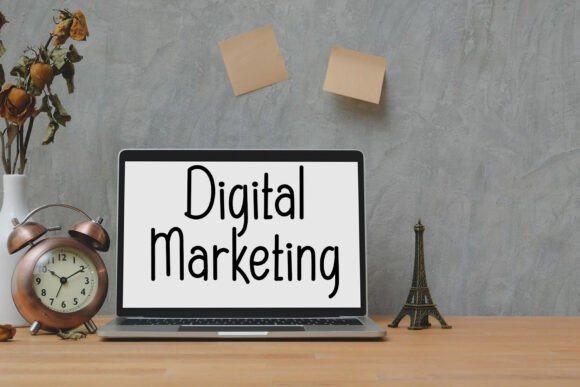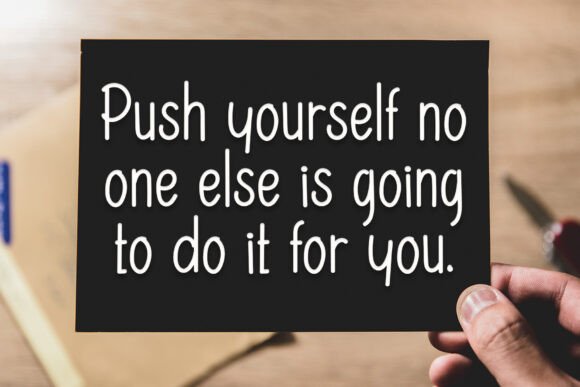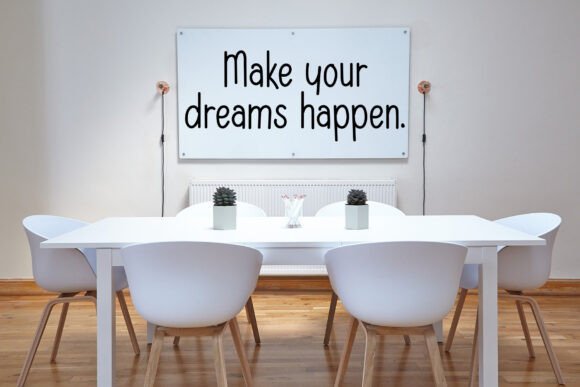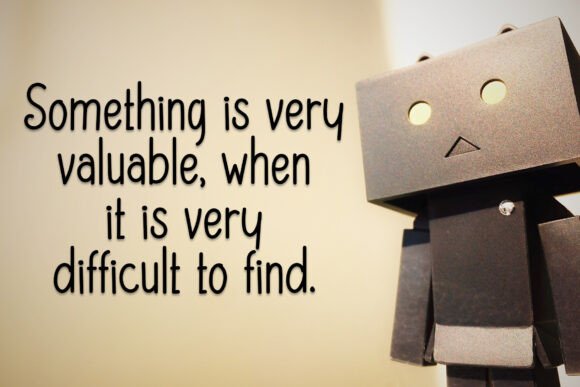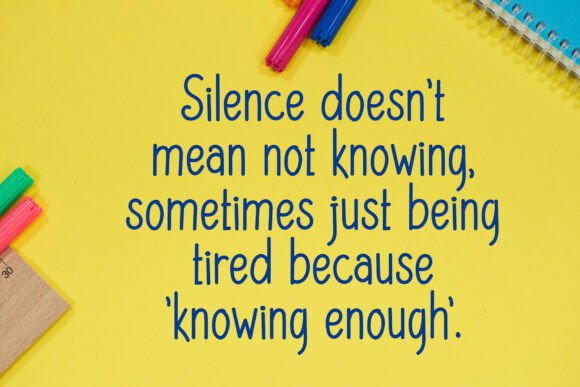
Coffee Lover Font: Elevate Your Designs with a Unique and Elegant Touch
Are you a designer or crafter looking for a font that can add a touch of elegance and sophistication to your creations? Look no further than the Coffee Lover Font. This beautiful, handwritten font is perfect for a variety of design projects, from wedding invitations and greeting cards to billboards, logos, and business cards.
A Unique and Elegant Font for Your Designs
Coffee Lover Font is a one-of-a-kind font that features a varied baseline, giving it a natural, hand-made touch. This unique characteristic makes it perfect for designs that require a personal and elegant feel. The font’s elegant strokes and curves will add a touch of sophistication to any design, making it ideal for projects that require a high level of creativity and style.
Coffee Lover Font is versatile and can be used for a wide range of design projects, including:
- Wedding invitations and ceremony cards
- Billboards and outdoor advertising
- Business cards and stationery
Whether you’re designing for print or digital, Coffee Lover Font is the perfect choice for adding a touch of elegance and sophistication to your creations.
Why Choose Coffee Lover Font?
There are many reasons why Coffee Lover Font is the perfect choice for designers and crafters. Here are just a few:
- Unique and elegant design: Coffee Lover Font features a unique and elegant design that will add a touch of sophistication to any project.
- Versatile: The font is versatile and can be used for a wide range of design projects.
- PUA encoded: The font is PUA encoded, making it easy to access all glyphs and swashes.
Tips for Using Coffee Lover Font
Here are a few tips for using Coffee Lover Font in your designs:
- Use it for headings and titles: Coffee Lover Font is perfect for headings and titles, adding a touch of elegance and sophistication to your designs.
- Experiment with different sizes and colors: Try out different sizes and colors to see how Coffee Lover Font looks in different contexts.
- Pair it with other fonts: Coffee Lover Font pairs well with other fonts, so try combining it with a sans-serif font for a unique look.
Coffee Lover Font is a unique and elegant font that is perfect for designers and crafters looking to add a touch of sophistication to their creations. With its varied baseline, PUA encoding, and versatility, it’s the perfect choice for a wide range of design projects. Whether you’re designing for print or digital, Coffee Lover Font is sure to elevate your designs and make them stand out.